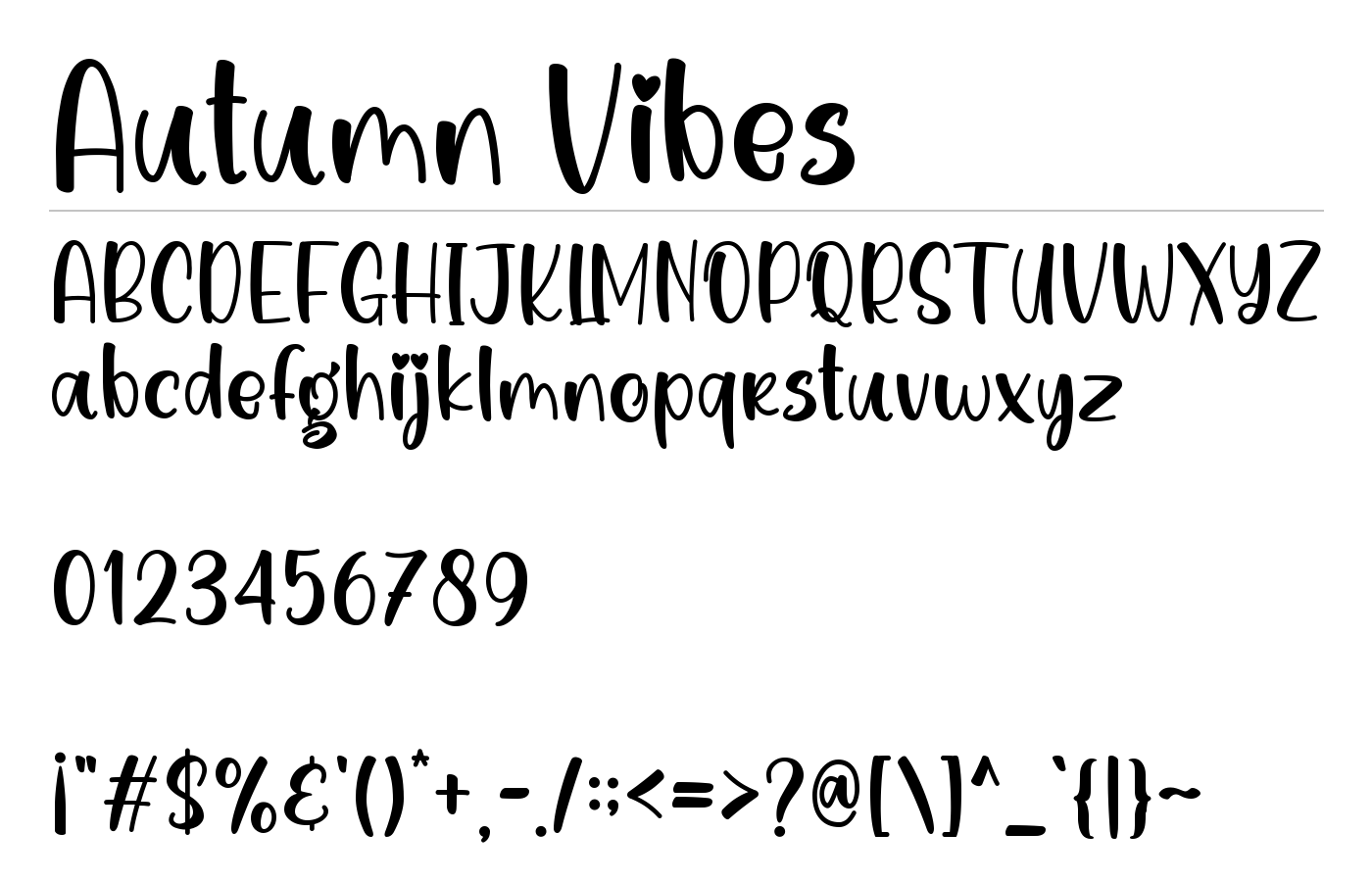
Autumn Vibes is a playful and friendly handwritten sans serif font that captures a warm, casual spirit with its slightly irregular strokes and charming heart detail on the lowercase "i". Its tall, narrow letterforms and medium stroke contrast give it an inviting and approachable feel, making it perfect for creative projects, greeting cards, and branding that seeks a personal, cheerful touch. This font shines in headlines, logos, and packaging where a fun, informal vibe is desired.
Autumn Vibes Font
About Autumn Vibes Font
| Font family | Autumn Vibes Font |
| Designer | Risma Ramawi |